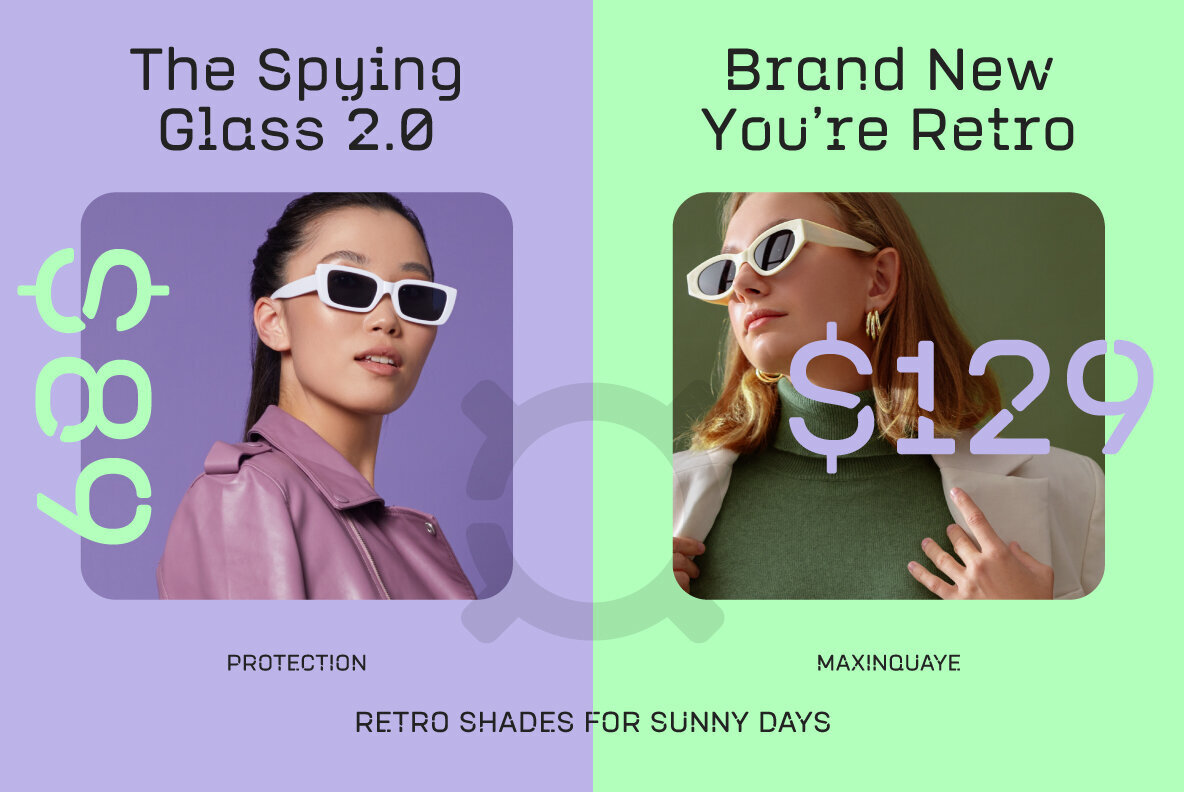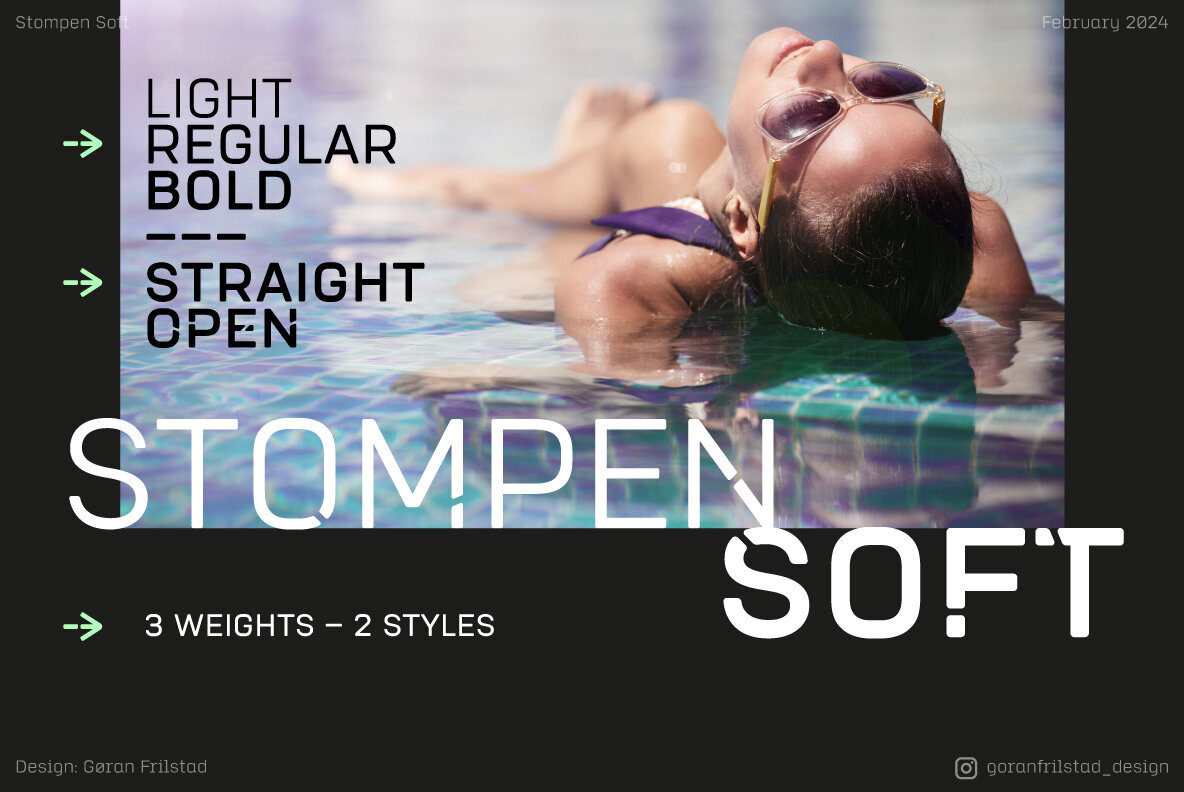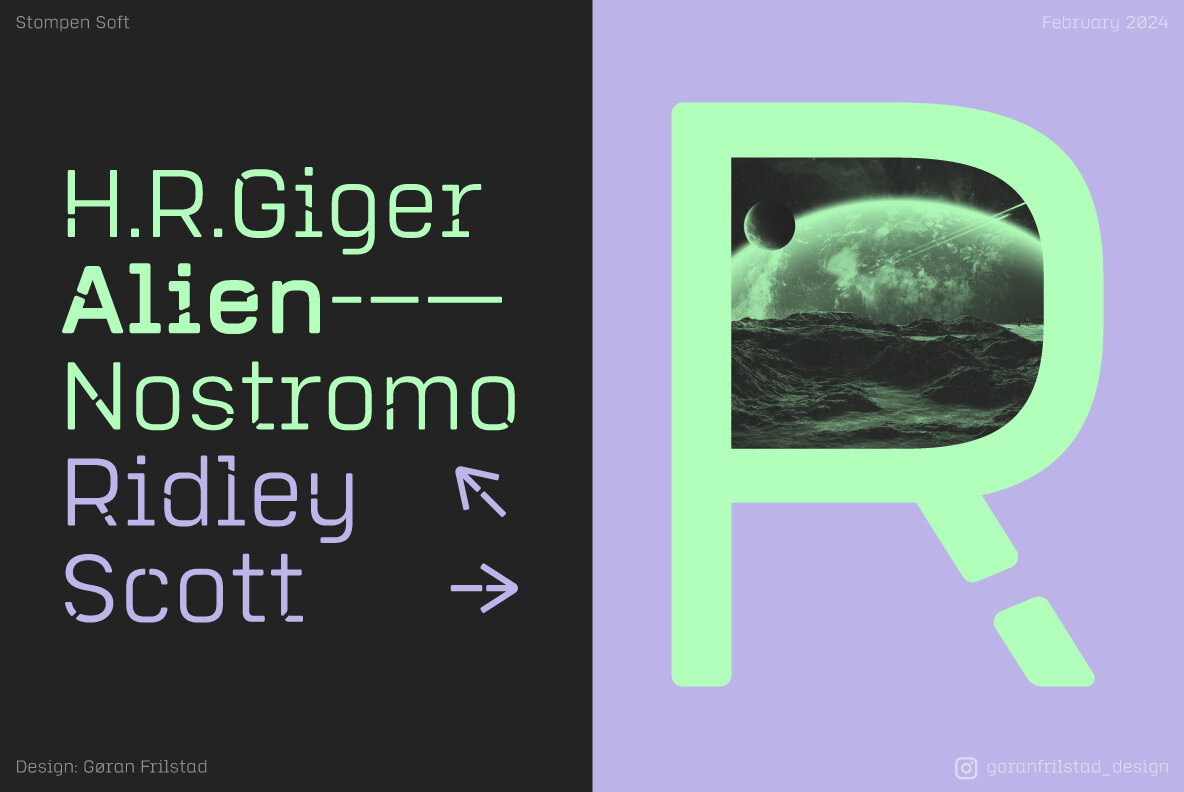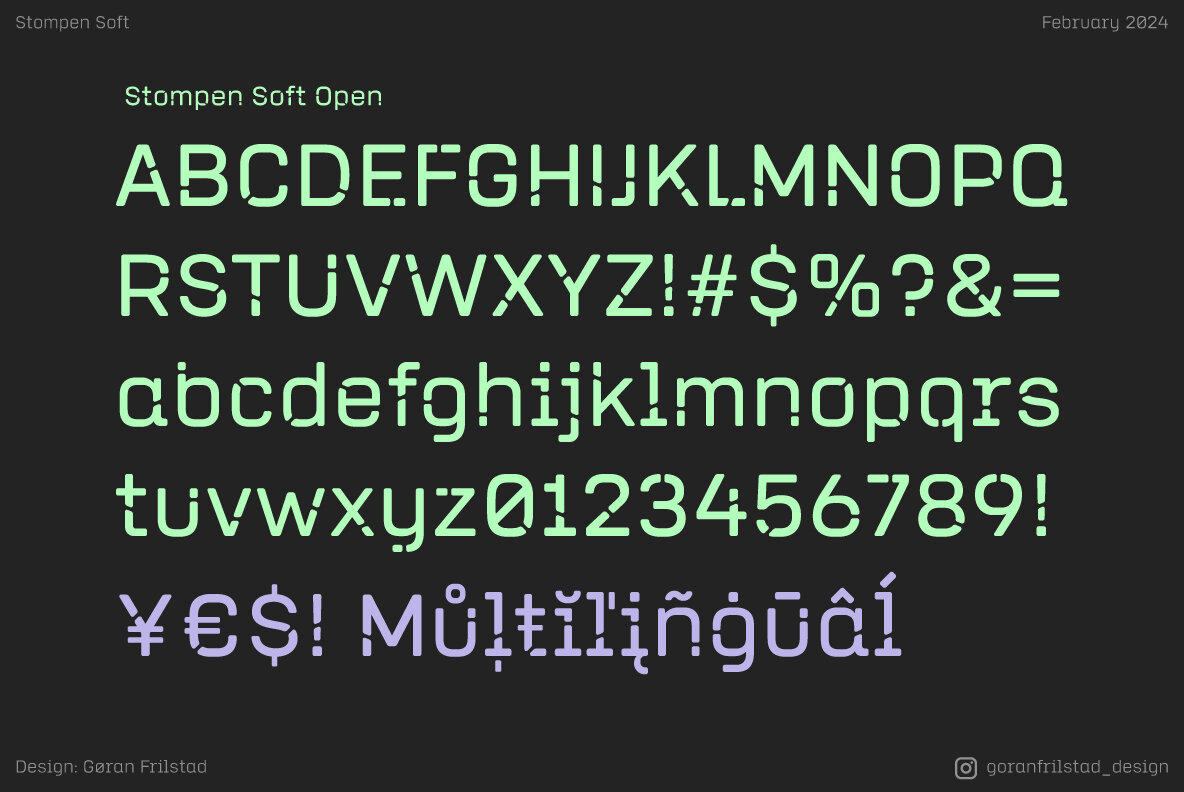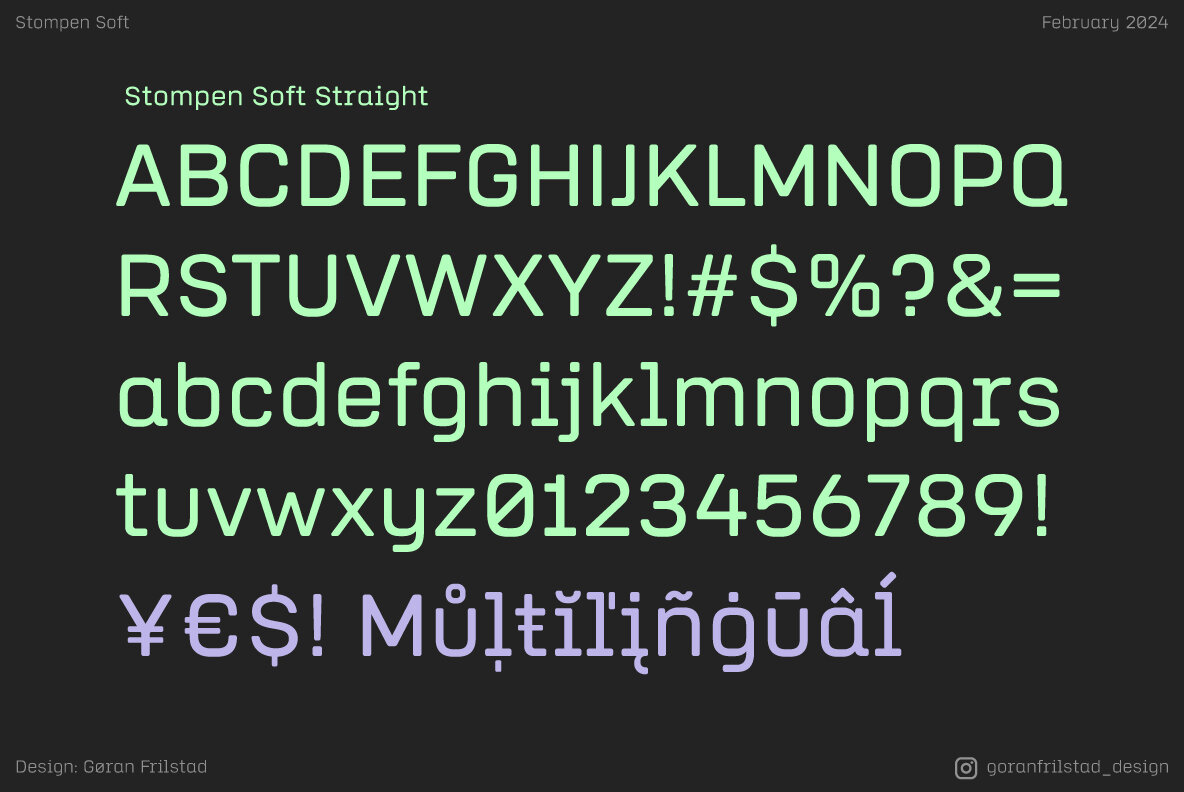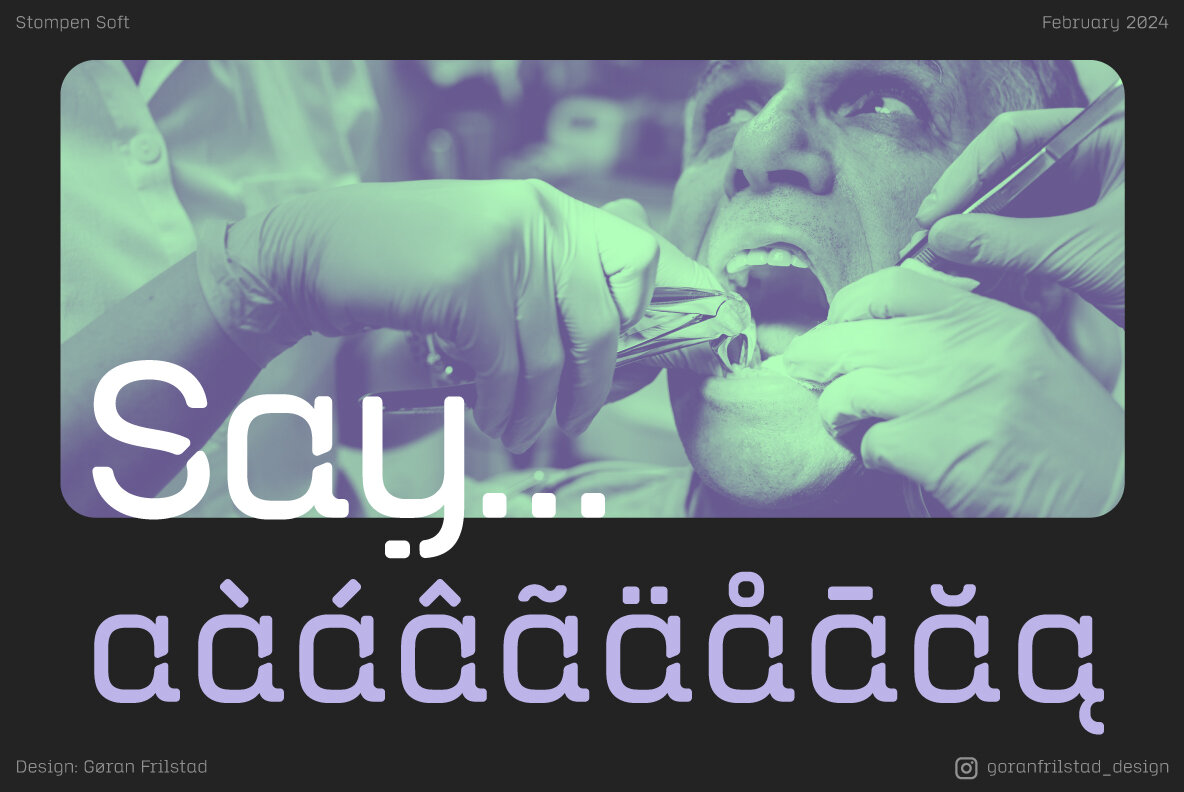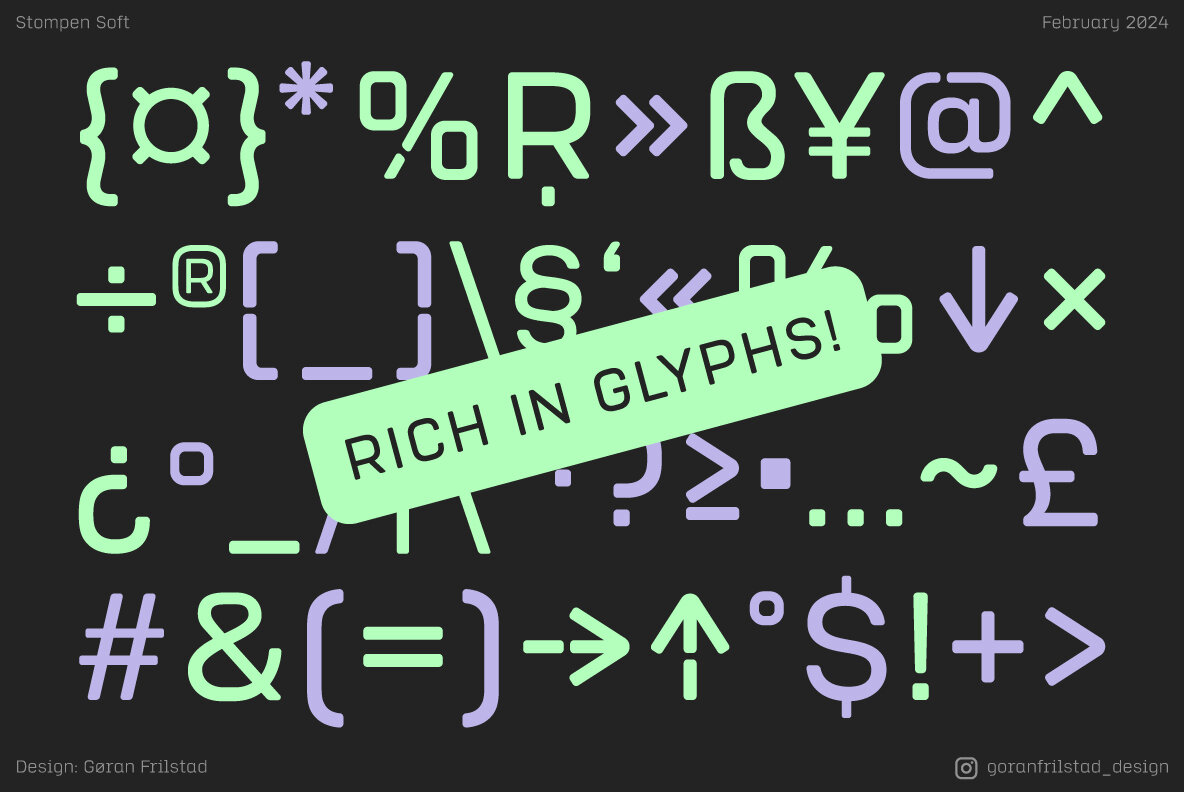
Stompen Soft Font
StompenSoft is a sans serif typeface with soft endings and an overall geometric feel. It has short ascenders and decenders which makes it suitable for tighter leading. Some of the lowercase characters, such as "i", "j", "l", "r" and also "1", would fall in the slab serif category. The typeface has 3 font weights with two different styles – straight and open, which works very well when combined. StompenSoft is versatile and suitable for using within magazines, posters, branding, websites etc.